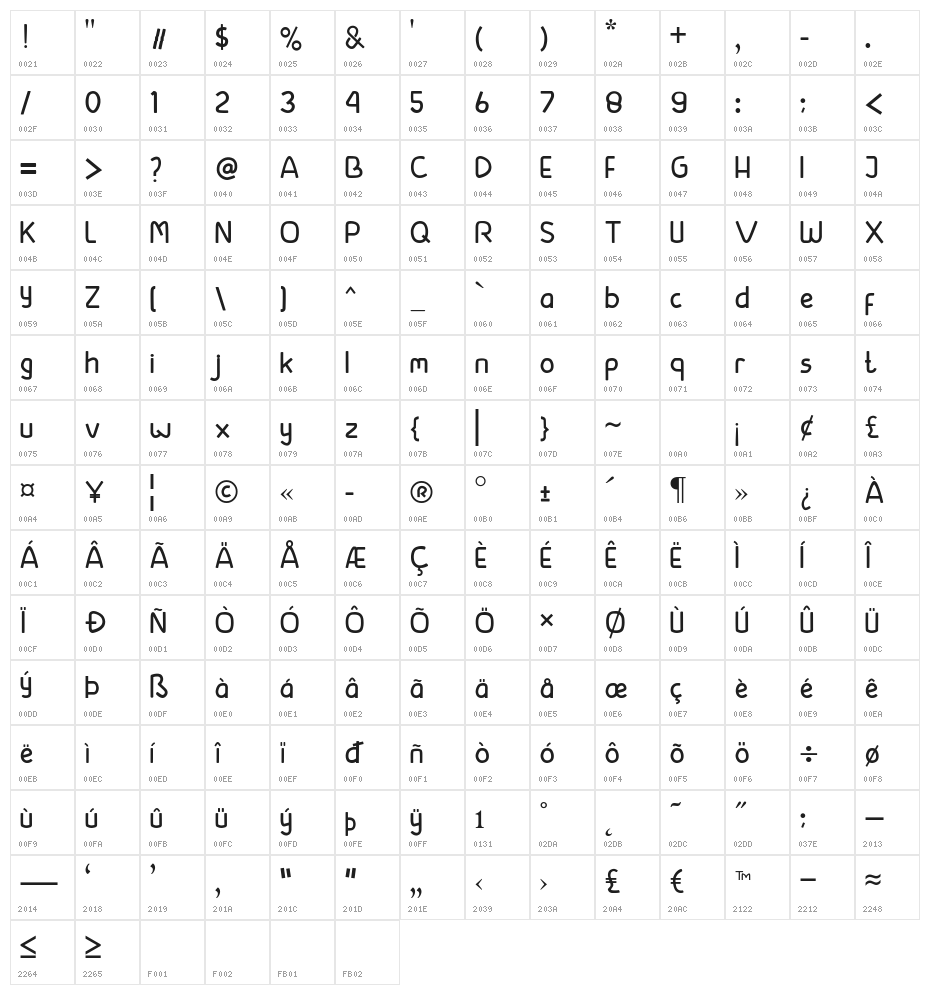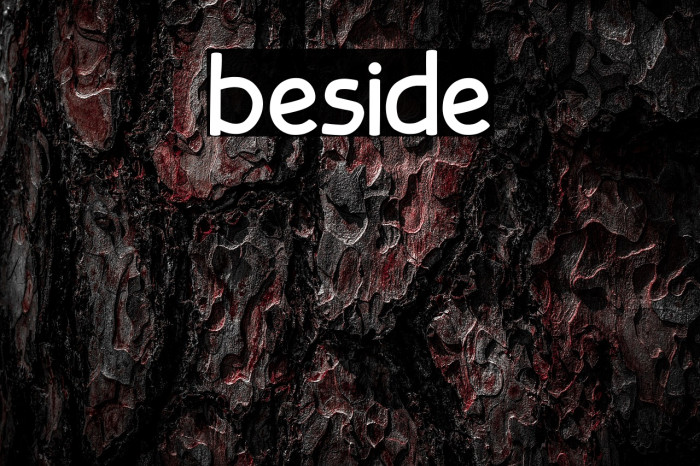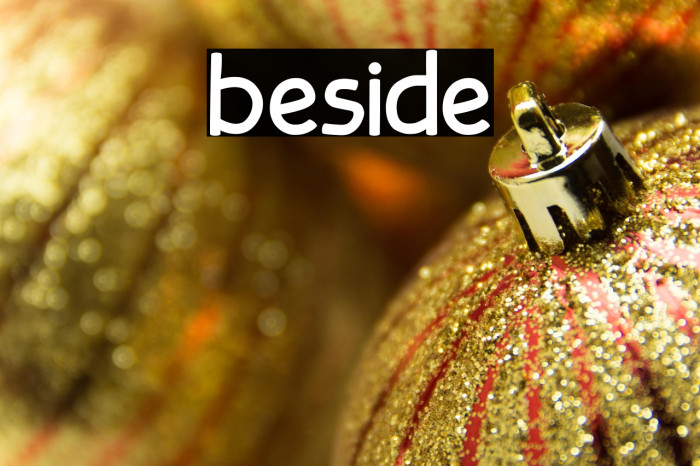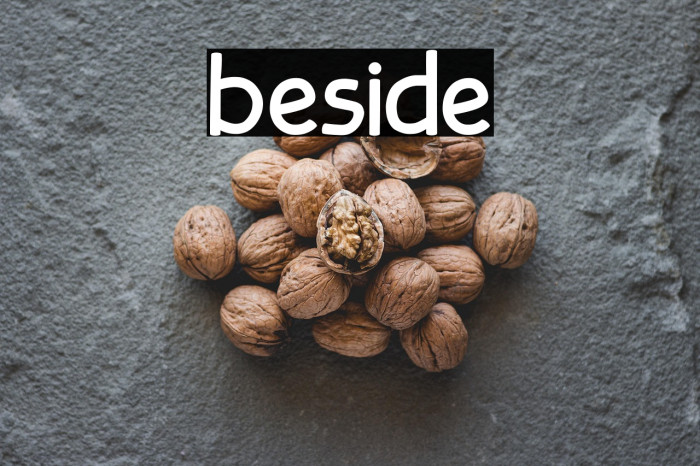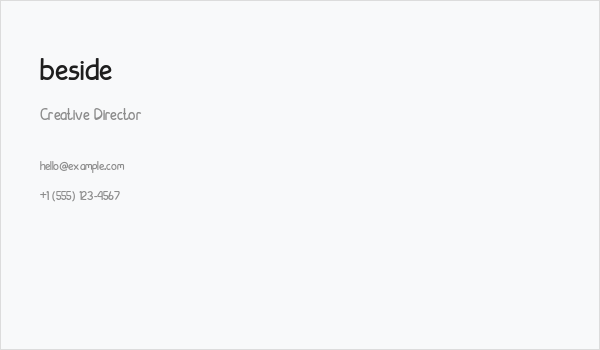
beside Font
beside Description
This font features a playful and rounded design, characterized by smooth curves and a friendly appearance. The letters have a consistent stroke width, giving it a uniform look. The rounded edges and slightly condensed form add a modern touch, making it suitable for casual and informal settings. The numerals and special characters maintain the same playful style, ensuring cohesion across all elements. Its readability and unique style make it stand out, while still being versatile enough for various applications.
| Use Case | Headlines, Logos, Casual Text |
| Proposed Projects | Ideal for children's books, playful branding, casual invitations, and creative posters. |